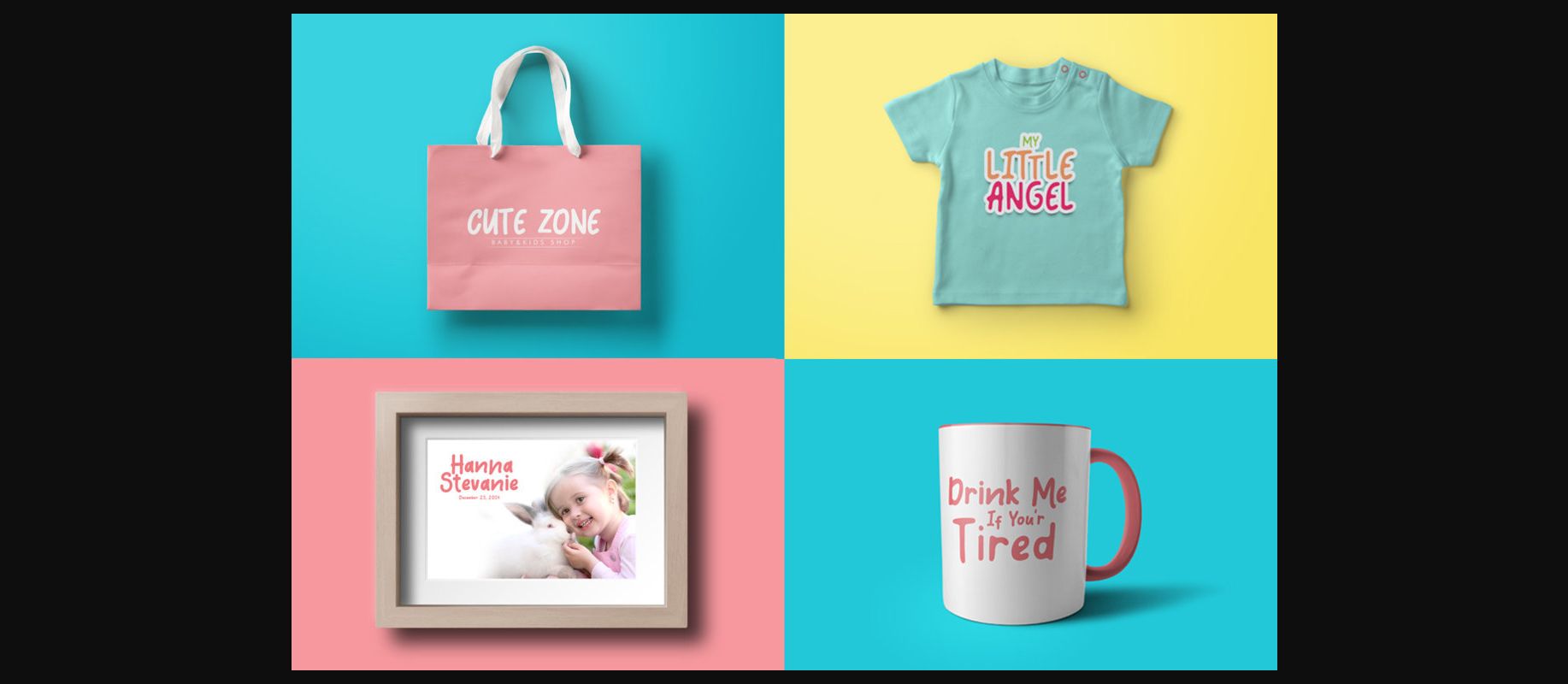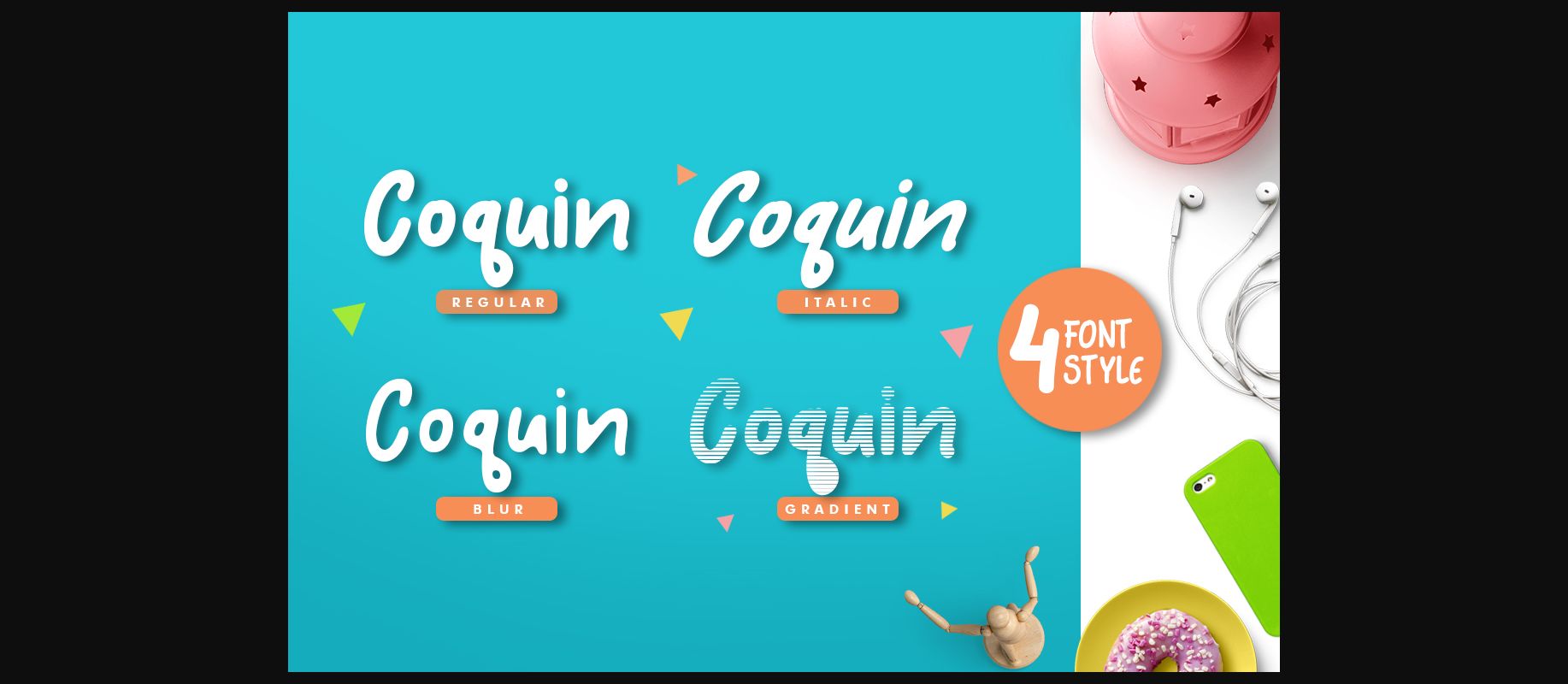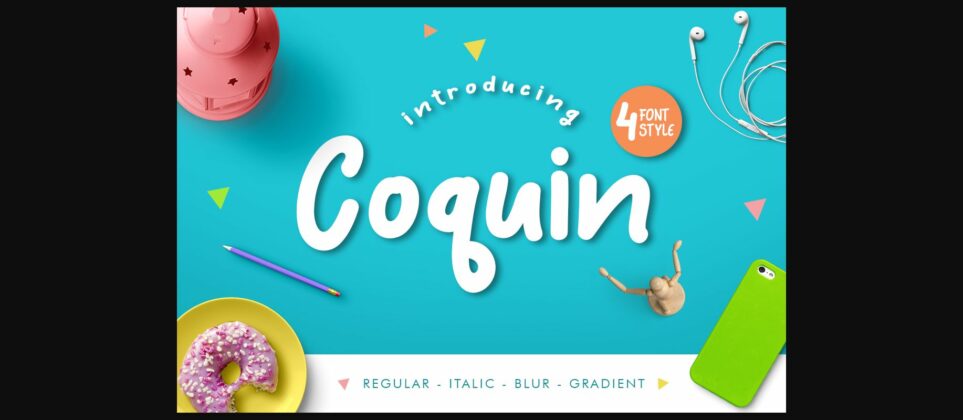
About Coquin Font
Inspired from handwriting created by the strokes of a bold marker, Coquin is an amazingly cute font. Suitable to a large range of bright and fun designs, Coquin is definitely go-to decorative font.